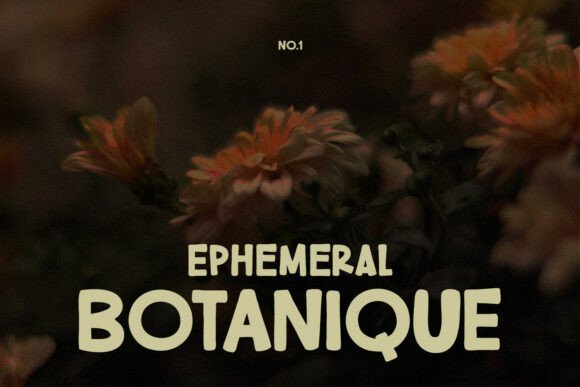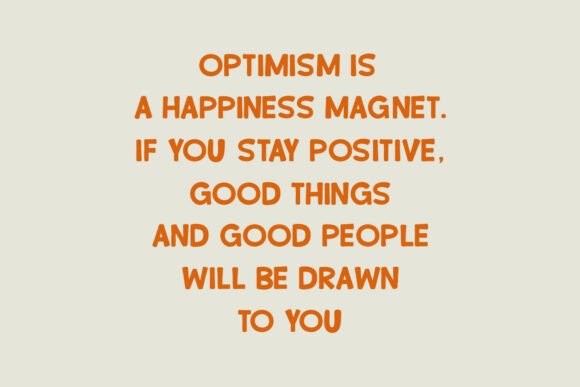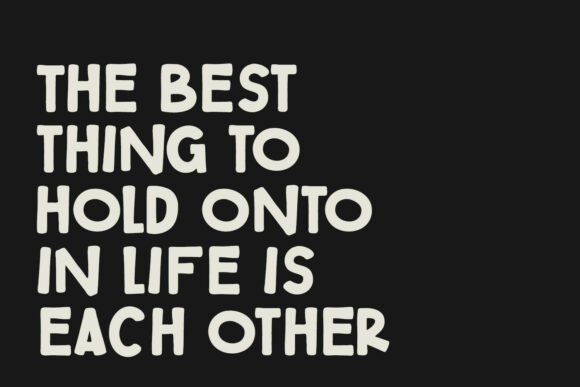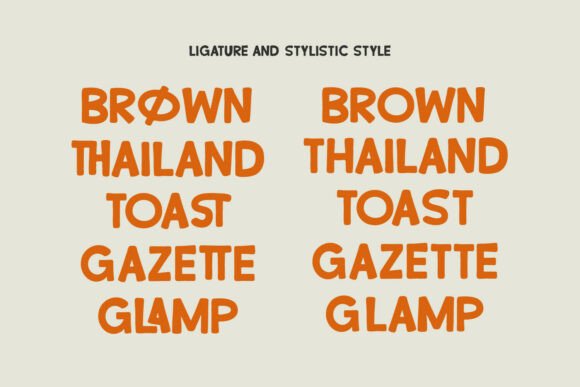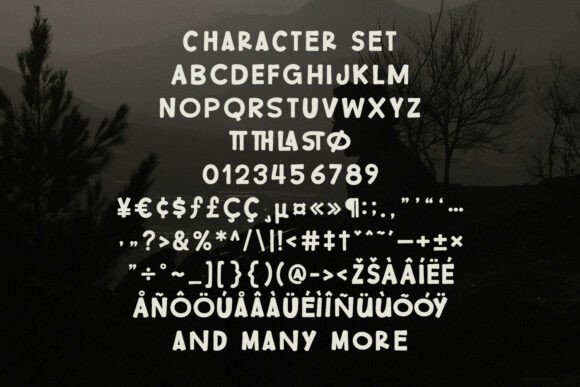
Introduction to Luthgy Font
Have you ever found yourself doodling in the margins of a notebook or scribbling in the sand at the beach, lost in the creative process? For designers, those moments can be a spark of inspiration, a reminder that sometimes the most beautiful and unique ideas come from a place of imperfection and freedom. Enter Luthgy Font, a bold and playful handmade display font designed to bring warmth, character, and creativity to your designs.
With its thick, rounded forms and soft-edged letters, Luthgy Font is the perfect addition to any design project that calls for a human touch and a fun visual statement. Whether you’re working on a branding project, creating posters, or designing merchandise, Luthgy Font’s unique style is sure to add authenticity and life to every letter you use.
Key Features of Luthgy Font
- High-quality design: Luthgy Font offers a unique and stylish design perfect for creative projects.
- Unique characteristics: The Luthgy Font features a distinctive and modern design, making it an excellent choice for designers looking to add a touch of elegance to their creative projects.
Honest Review: Luthgy Font
The Luthgy Font is a stunning addition to any design project. Here are some of its standout features:
- ✨ High-quality design with a sleek and modern aesthetic
- ✨ Transparent background, making it perfect for layered designs
- ✨ Highly versatile, suitable for various creative projects
While the Luthgy Font is a solid design resource, there are a few limitations to consider:
- ⚠️ Limited font sizes and styles available
- ⚠️ May not be suitable for print designs due to limited weight options
Overall, I’m impressed with the Luthgy Font. Its high-quality design and transparent background make it an excellent choice for designers working on various creative projects. If you’re looking for a reliable design resource, the Luthgy Font is definitely worth checking out.
Tips for Getting the Most Out of Luthgy Font
To get the most out of Luthgy Font, use it on a transparent background to achieve a clean and modern look. You can also experiment with different font sizes and styles to add visual interest to your design project.
Luthgy Font is ideal for:
- Creative projects, such as branding, logos, and typography-based designs.
- Designing social media graphics, flyers, and brochures.
- Creating presentations and reports with a professional touch.